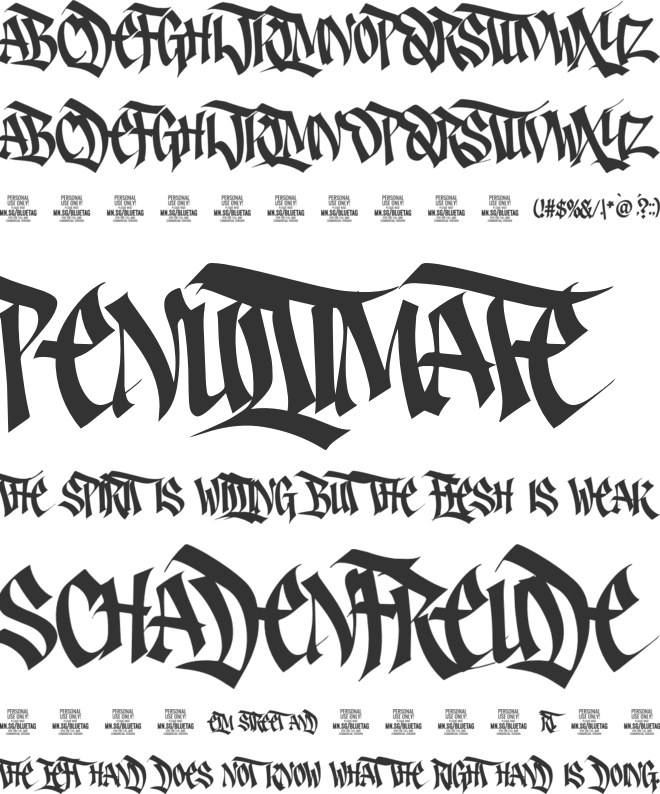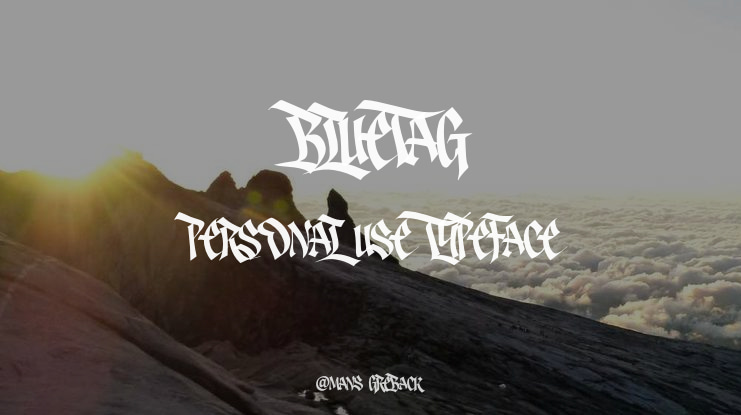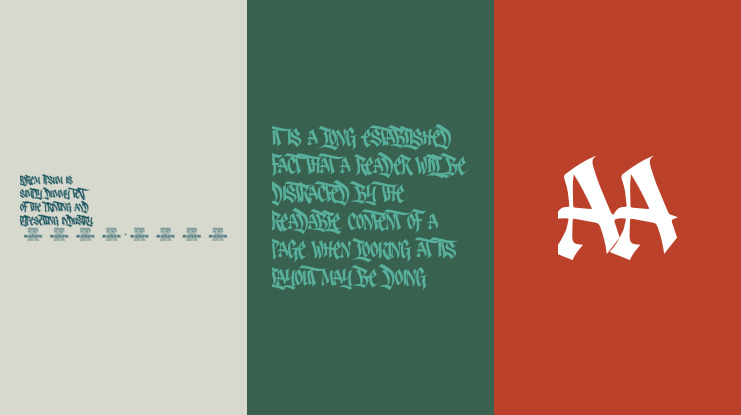
Bluetag PERSONAL USE Font Family
Mans Greback
NOTE: This font is for PERSONAL USE ONLY!To purchase a commercial license, visit:https://www.mansgreback.com/product/bluetagBluetag is a wild and aggressive blackletter typeface, charged with raw energy and fast motion. The angular extensions and razor-sharp terminals give the impression of movement, as if each character is cutting through the air.For questions, please visit https://mansgreback.com/faq